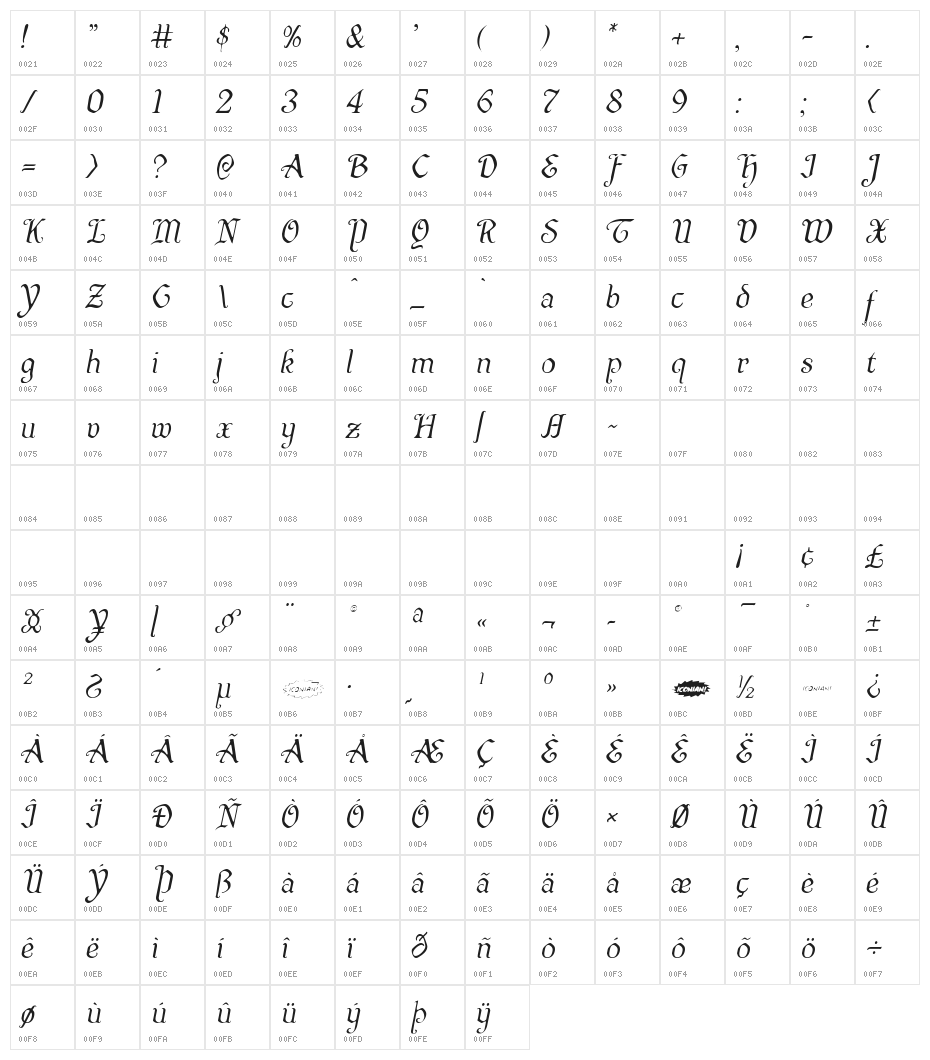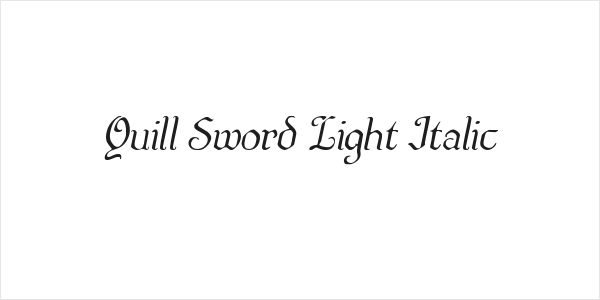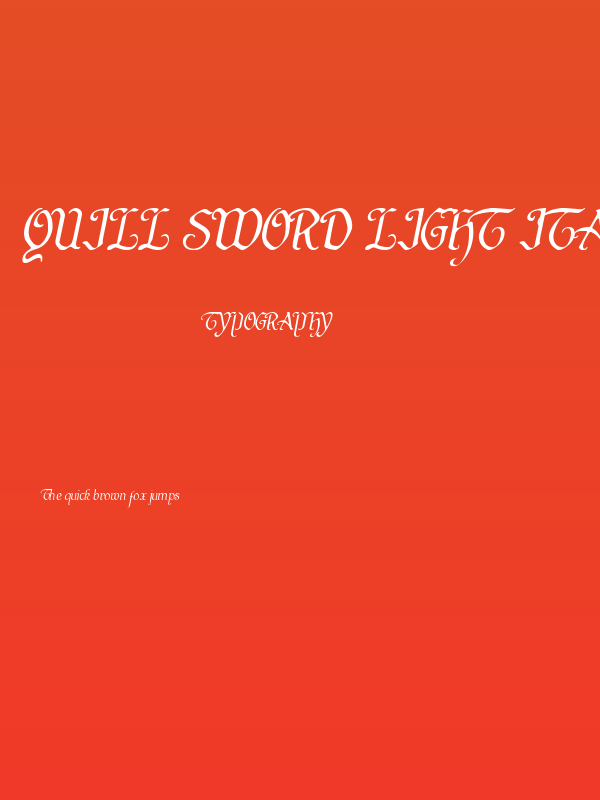
Quill Sword Light Italic Font
Quill Sword Light Italic Description
This font exudes a classic and elegant style, reminiscent of traditional calligraphy with a modern twist. The characters are gracefully elongated with a slight slant, giving them an italicized appearance. The strokes are light and fluid, with subtle curves and flourishes that add a touch of sophistication. The uppercase letters are bold and commanding, while the lowercase letters maintain a delicate balance, offering a harmonious blend of formality and grace. The numerals are clear and distinct, matching the overall aesthetic of the font. Special characters are thoughtfully designed, maintaining consistency with the font's elegant theme.
| Use Case | Logos, Invitations, Formal documents |
| Proposed Projects | Ideal for wedding invitations, formal event programs, elegant branding, and sophisticated logo design. |